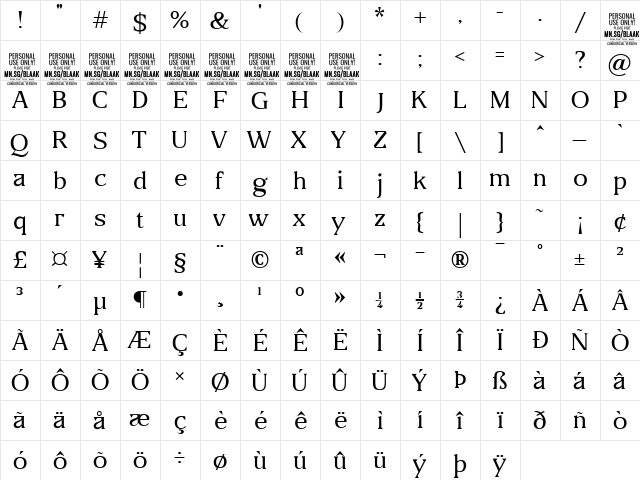
Blaak Thin PERSONAL USE Regular
| Foundry | Mans Greback |
| Designer | Unidaas & Mans Greback |
Design Context for Blaak Thin PERSONAL USE Typeface
Blaak Thin PERSONAL USE takes a measured approach to typography — its balanced proportions and neutral character make it a reliable workhorse for both digital and print work. The delicate stroke weight brings airiness and refinement to layouts.